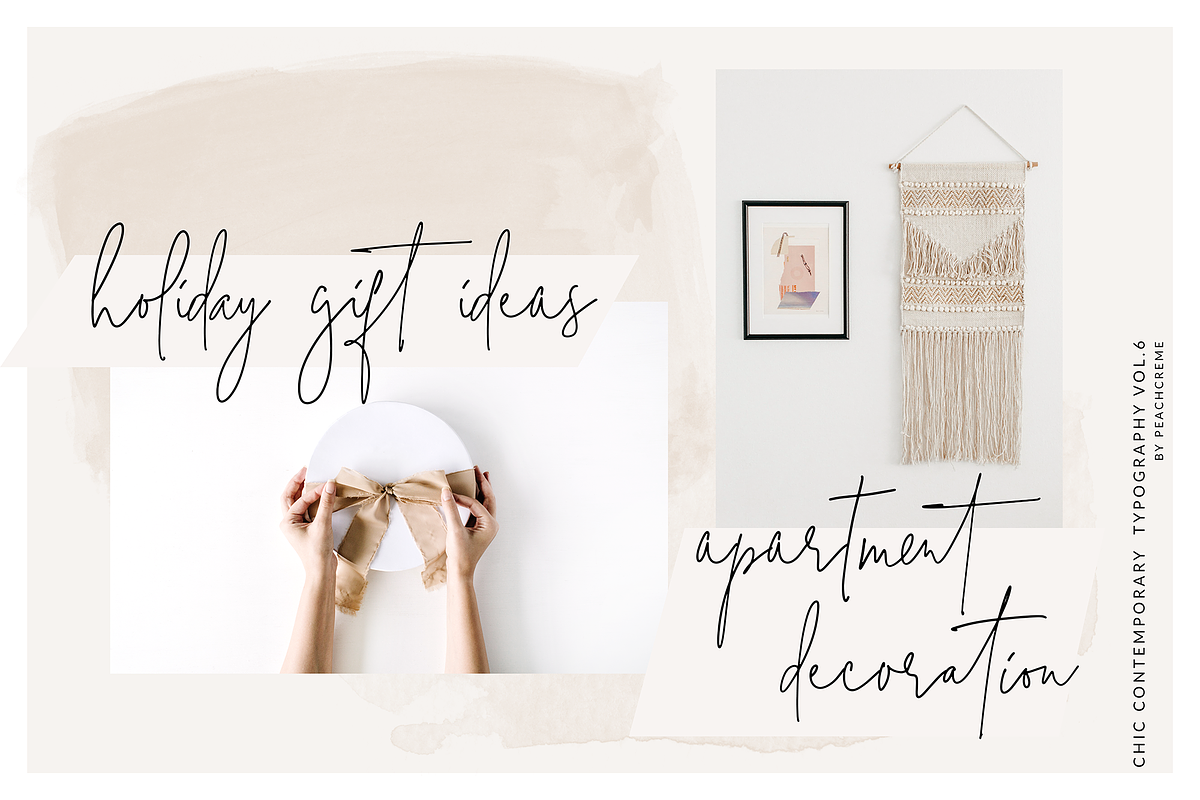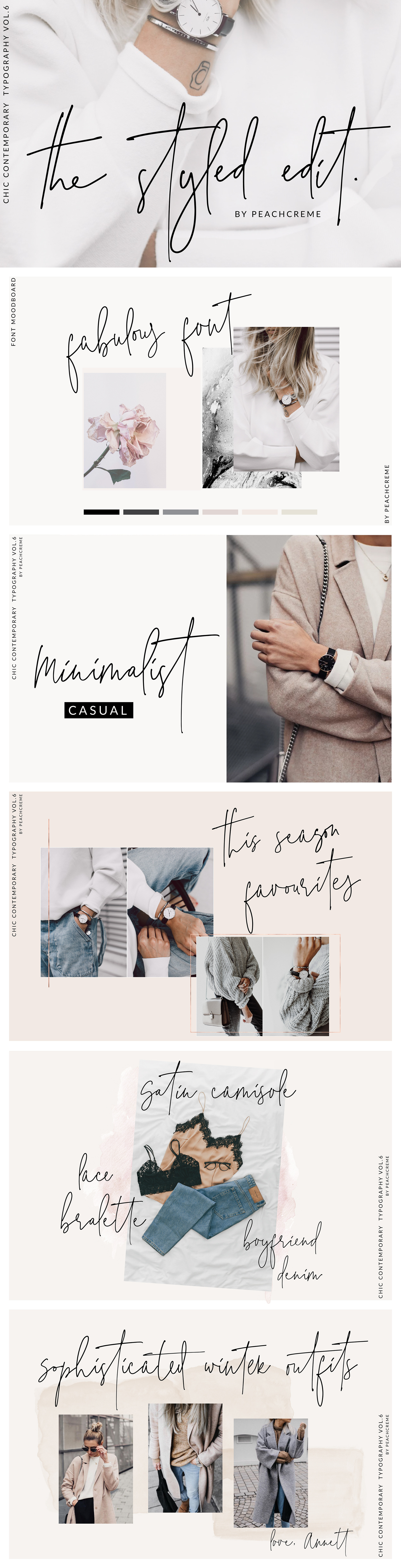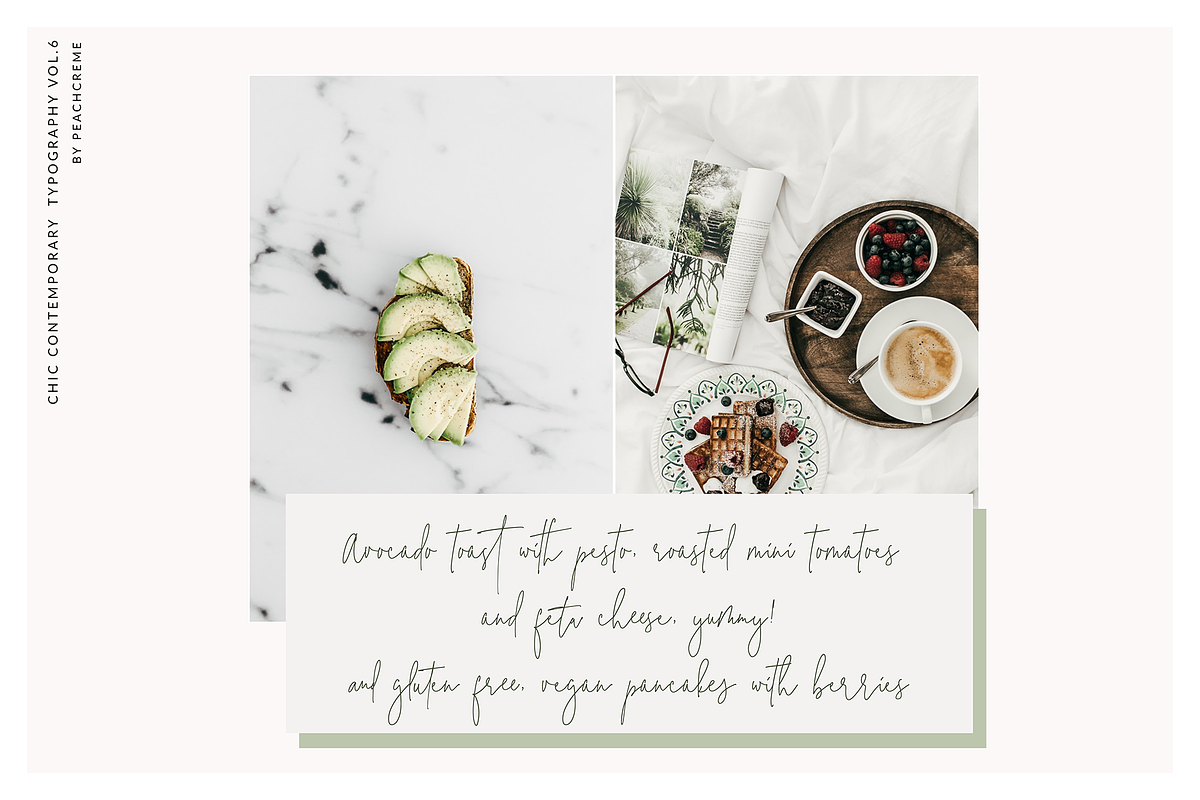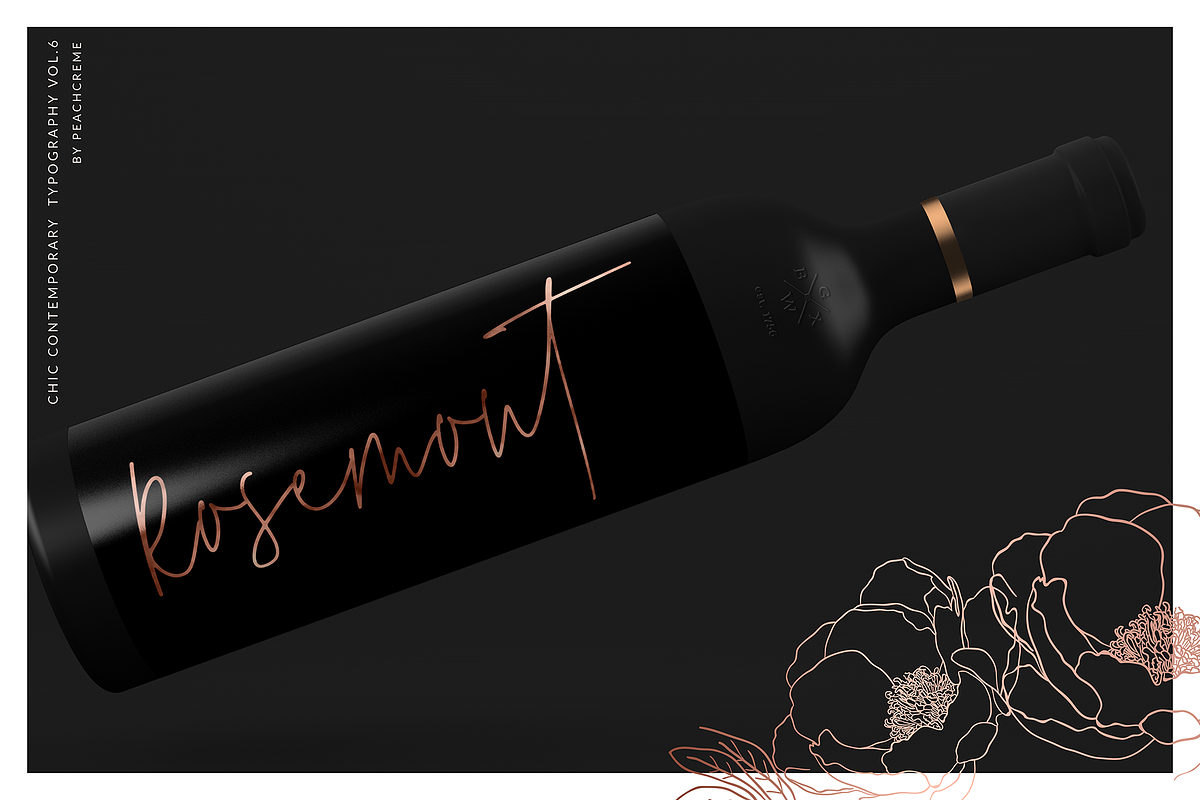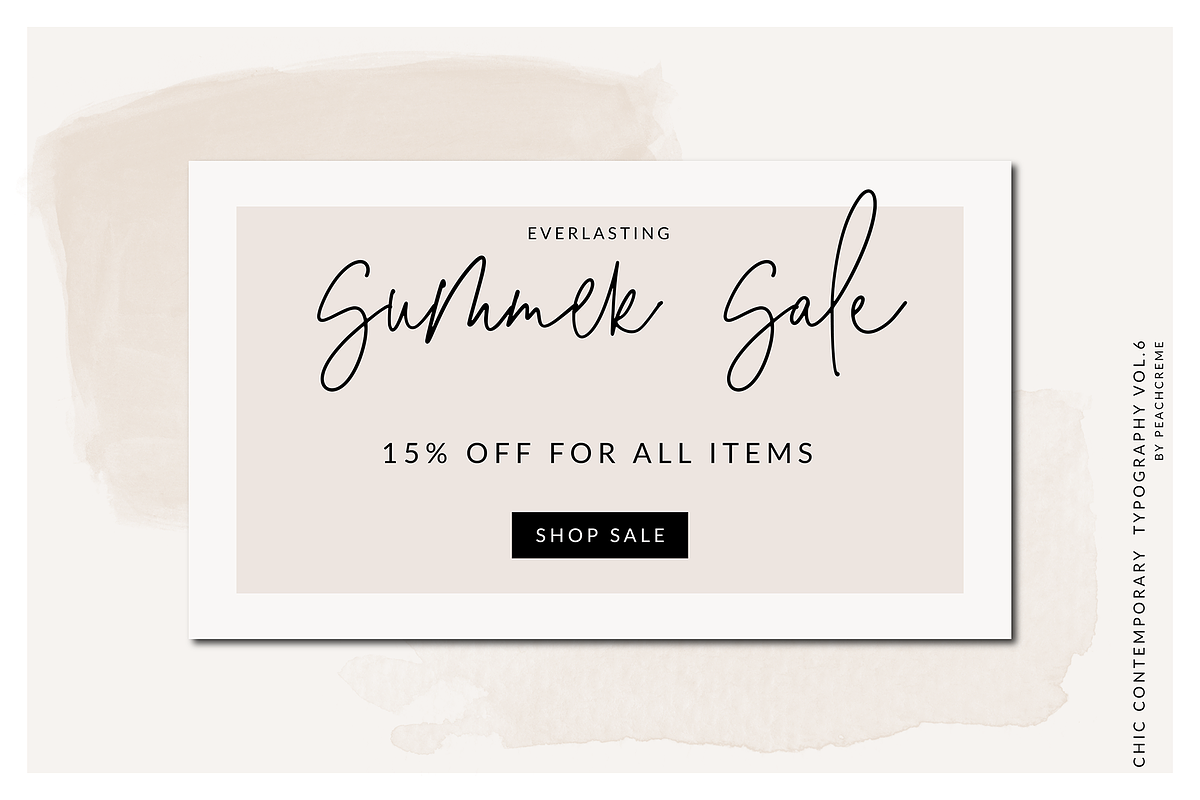
The Styled Edit- Chic Ligature Font
LUXURY FINE ART TYPOGRAPHY VOL.6
"The Styled Edit" is a crème de la crème font with contemporary, sophisticated accents. It is perfect for blogging, social media, branding, wedding invites and cards.
"The Styled Edit" includes full set of gorgeous uppercase and lowercase letters, numerals, a large range of punctuation and 90 ligatures, giving realistic hand-lettered style.
When creating the font, we should take into consideration that each letter should be able to be connected with other letters. For example, letter "a" should be well connected as well as with "l" and "n" and with any other letters. This limits us: we have to start letter from exact one point and finish in exact second point. So here come ligatures. I surveyed mostly common letter combinations and made 90 Discretionary ligatures with following letter combos:
ae et au ay oo ab al at nl el cl il ol sh sl ct dd ea bb cc mm lk ck ee ng ll nn pp the ad yl ed ce me ou nt ss th id rr bl es ut si en in tt ch ie ul ei be ci ly ion er ne sa so it is of op ex gg gh sk re on son ob ir tl mai men out ted sion ous est ment aus and ten cy can ta ff ſt st
By using these ligatures, you can give realistic handlettered style, escaping font "pattern" effect.
The Styled Edit is great for display typography when you want to add a little fast script. The only thing I would suggest is that the word spacing is not correct and could be a lot tighter considering this should only ever be used at large sizes.
This font is beautiful, and I have bought other fonts from this artist with my main or personal accounts. The only complaint is that there are no Spanish letters or accents. I purchased this font for a Spanish speaking couple and I had to add the accents manually (I made them in Illustrator). I would humbly ask that when you design your fonts, you consider other languages as well (Spanish, French, etc.). My only complaint, otherwise absolutely a charming and beautiful font from a great designer!